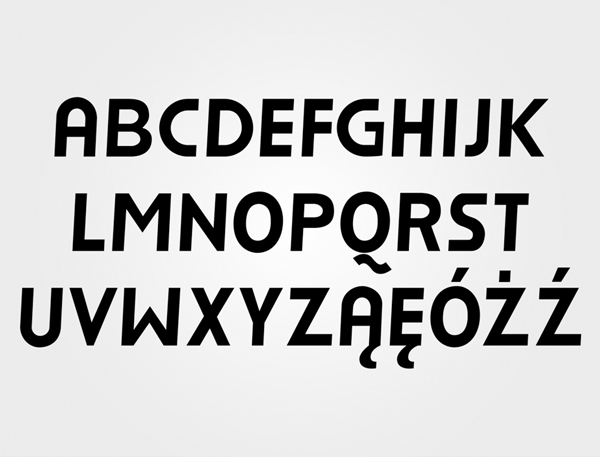
It was designed as a display type for titles, headlines, and posters.
Font is perfect for manualy join letters.
Includ upper/lowercase.
Includ special glyphs: Polish and English.
Only Bold weights.
Glyphs: 154.